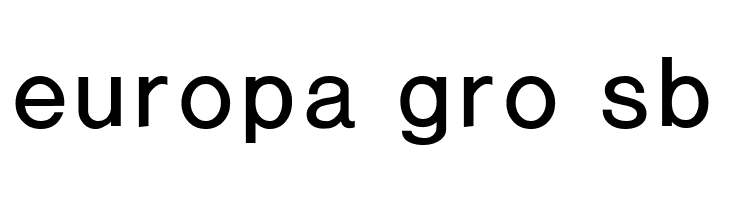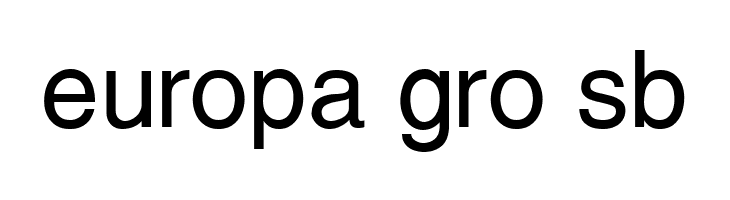
A geometric, highly legible font with uniform width and consistent stroke weight.
A modern, geometric sans-serif font with uniform width and clear readability.
A modern, geometric sans-serif font with consistent stroke widths.